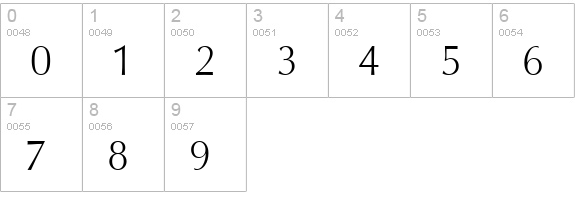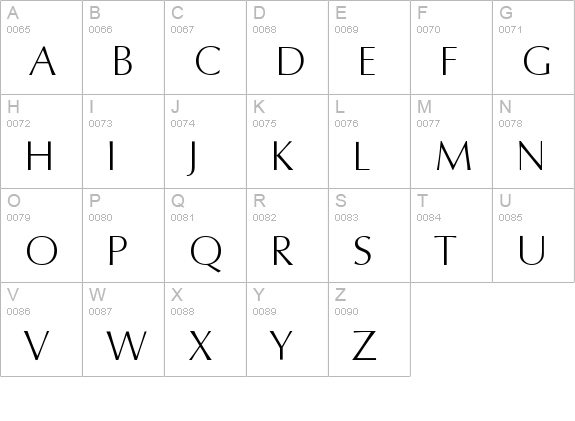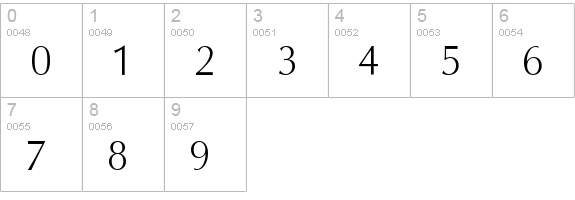
ColumbiaSerial-Xlight-Regular is the standard, neutral variant in the ColumbiaSerial typeface family \xE2\x80\x94 well suited to general body text, paragraphs, and standard typographic work.
ColumbiaSerial-Xlight-Regular is a sleek and modern font that exudes elegance and sophistication. With its clean lines and balanced letterforms, this typeface is perfect for a wide range of design projects, from branding to editorial layouts. The Xlight weight adds a touch of delicacy and finesse, making it ideal for titles and headlines. What makes ColumbiaSerial-Xlight-Regular even more appealing is that it is available for free download at FontsMarket.com. This means you can easily access and use this high-quality font in your projects without any cost. Don't miss out on the opportunity to enhance your designs with the timeless charm of ColumbiaSerial-Xlight-Regular. Download it today and elevate your creative work to new heights.